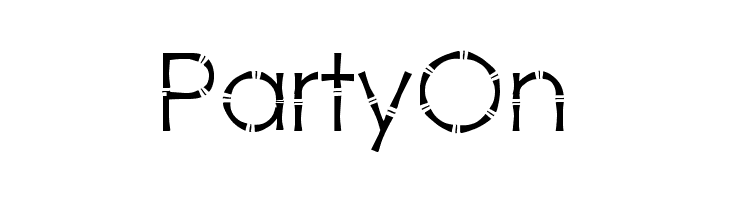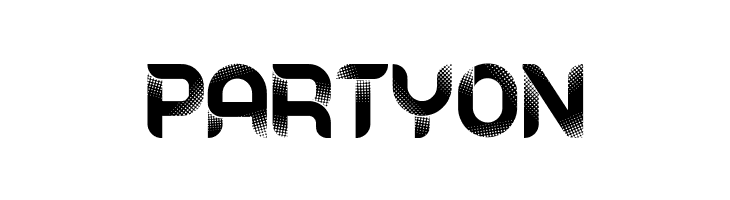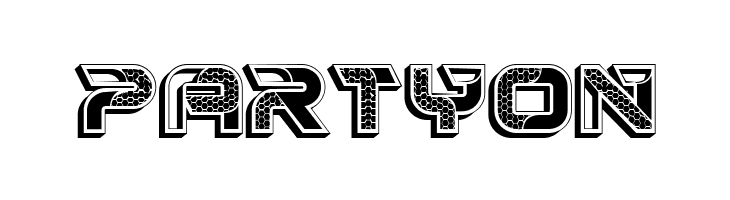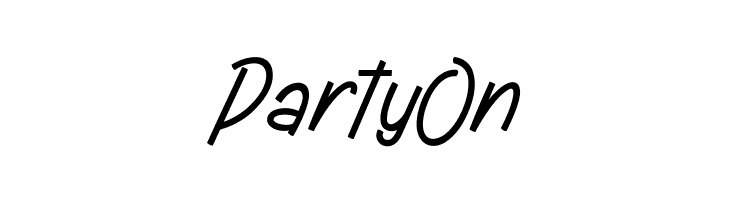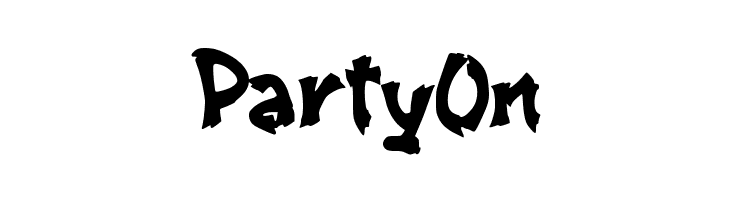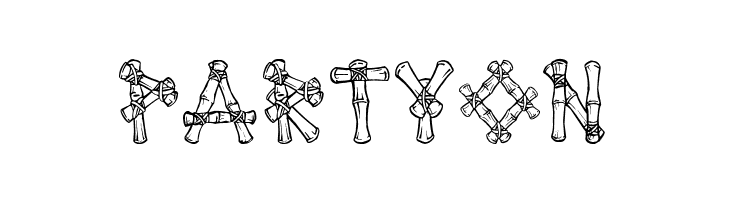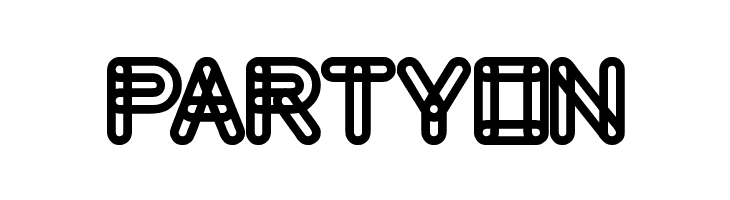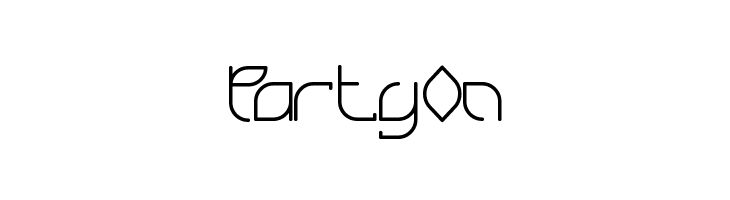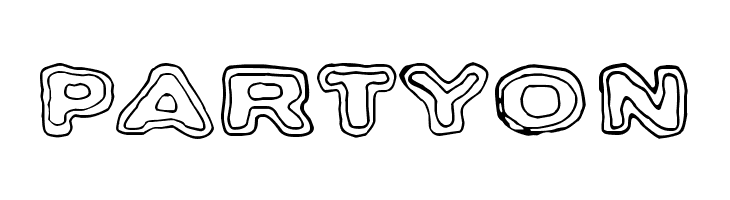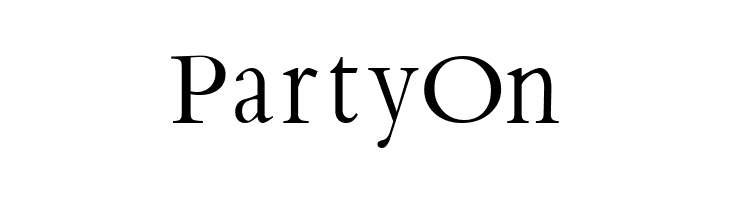
• Bambino_PersonalUseOnly
A playful, slanted handwritten font with medium contrast and a dynamic style.
• Bambiraptor
A playful, bold outline font with a three-dimensional appearance.
• Bambola Regular
A bold, decorative font with textured, three-dimensional letterforms.
• Bamboo
A classic serif font with elegant strokes and moderate contrast.
• BAMBOO chopsticks
A geometric, modern font with clean lines and rounded corners, ideal for tech-inspired designs.
• Bamboo de Saipan
• Bamboo Gothic Book
A modern, segmented font with a bamboo-inspired design.
• Bamboo Grove
A bold, brush-like font with an organic, hand-drawn style.
• Bamboo Regular
A modern, bold font with a halftone pattern and geometric design.
• Bamboo shoot
A modern, tubular font with a playful, bamboo-like design.